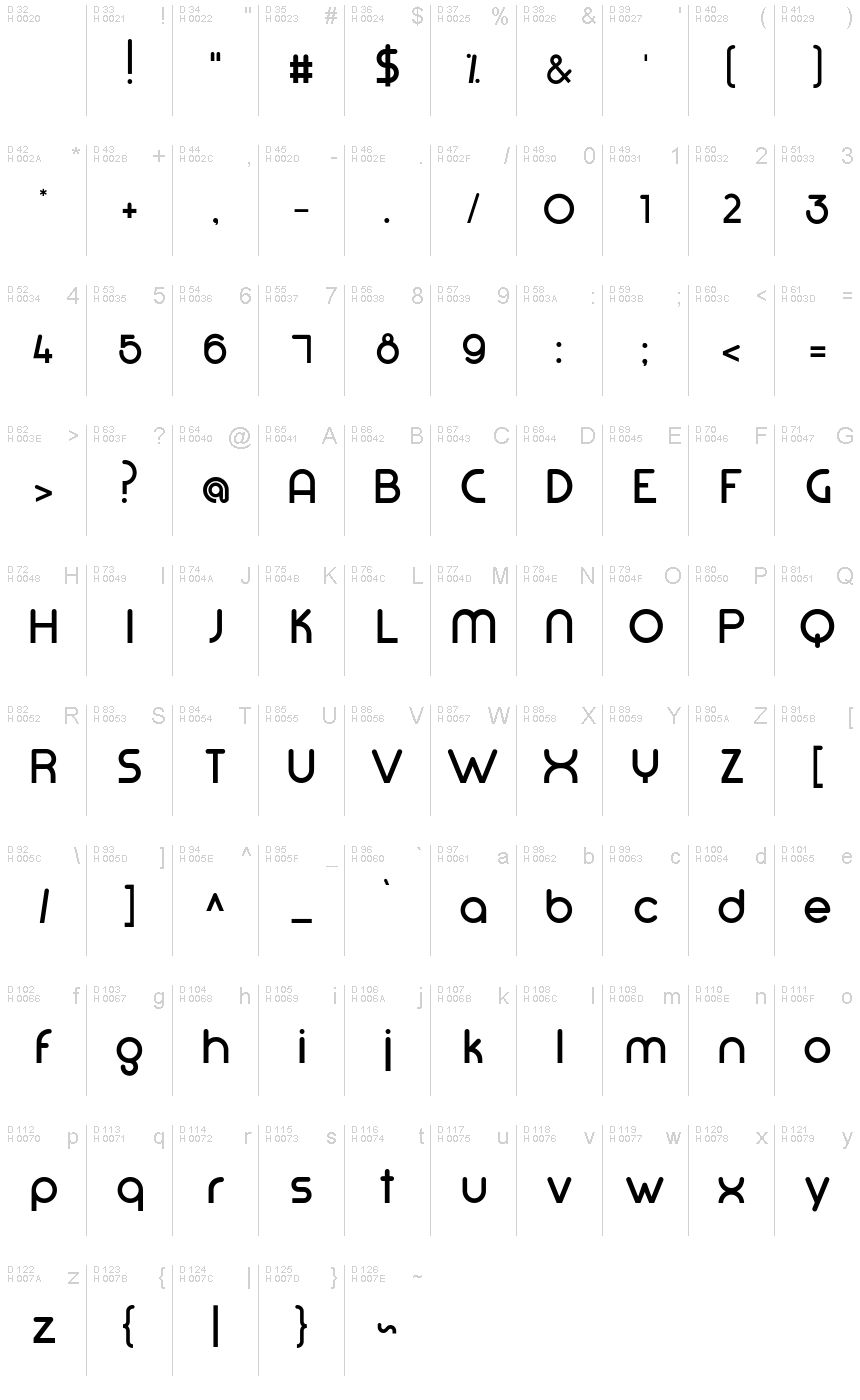
Mode G Regular
Mode G is a captivating sans-serif font crafted by the talented designers at GUD - Ohmyfont. With its bold, geometric forms and clean lines, this font exudes a sense of modern sophistication. The striking letterforms and harmonious balance create a visually striking and versatile typographic solution.
The font's distinctive character shines through in its sharp, angular terminals and the subtle interplay between straight and curved elements. The overall aesthetic lends itself to a wide range of design applications, from sleek branding to impactful editorial layouts.
Owing to its adaptability, Mode G can elevate a variety of projects, from corporate identities to dynamic digital interfaces. Its versatility makes it an excellent choice for designers seeking a font that can seamlessly blend function and style.